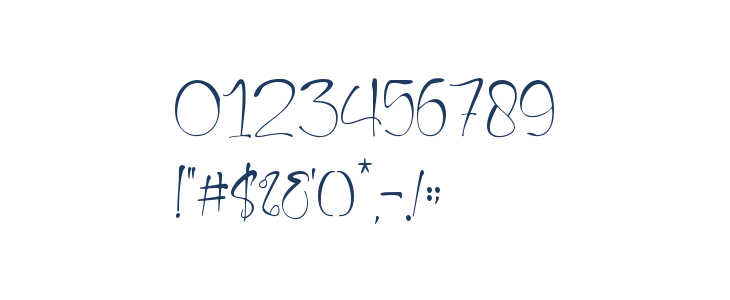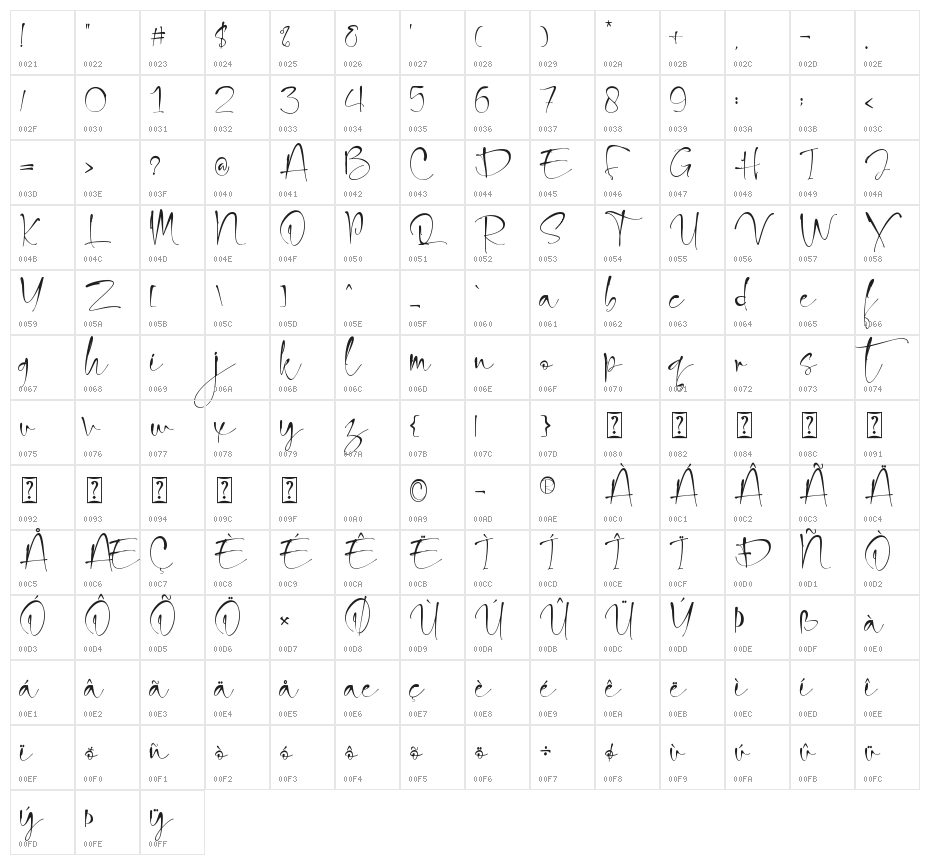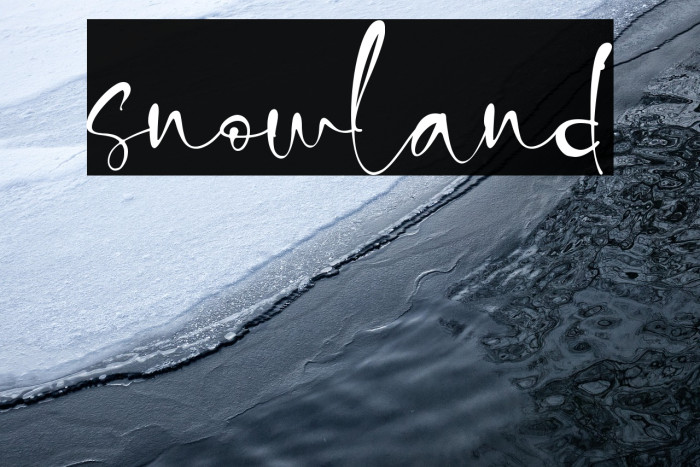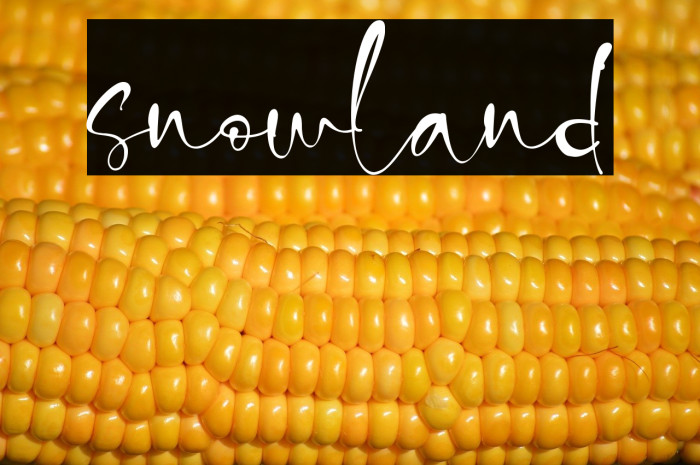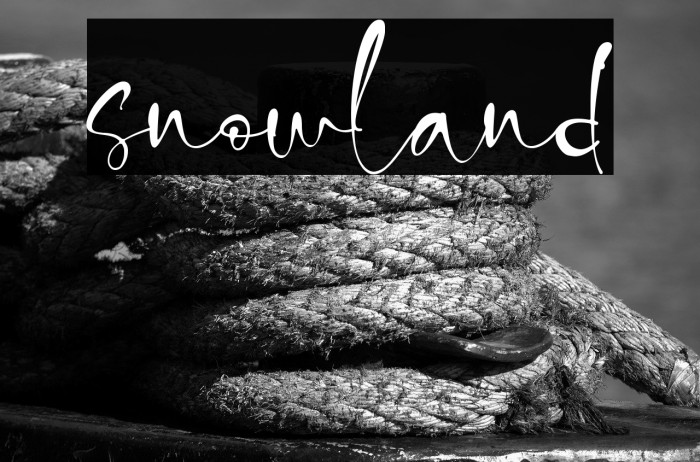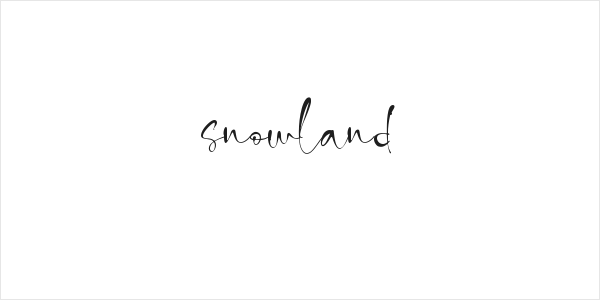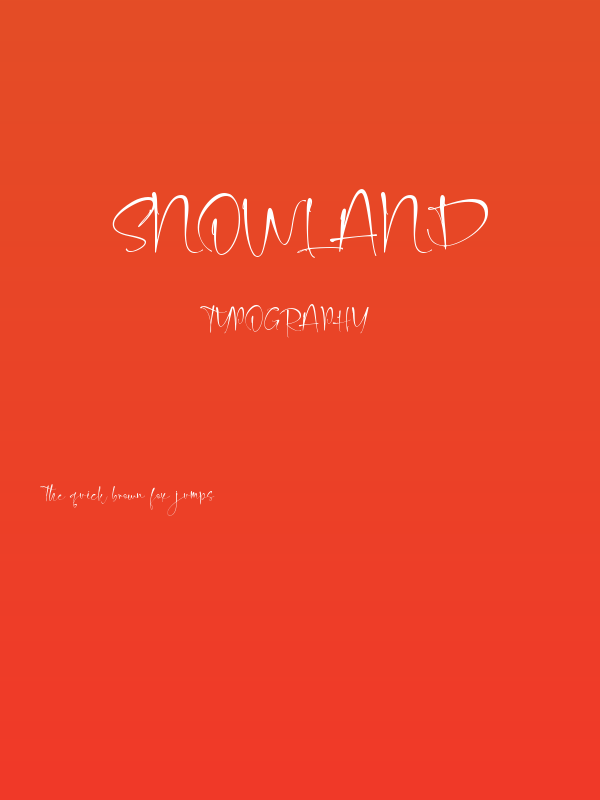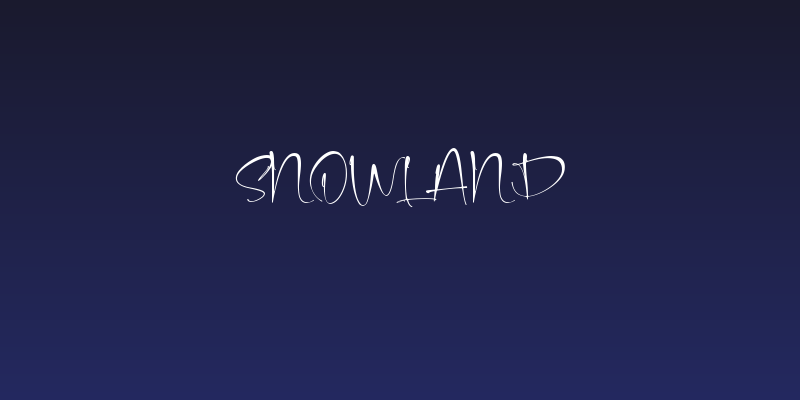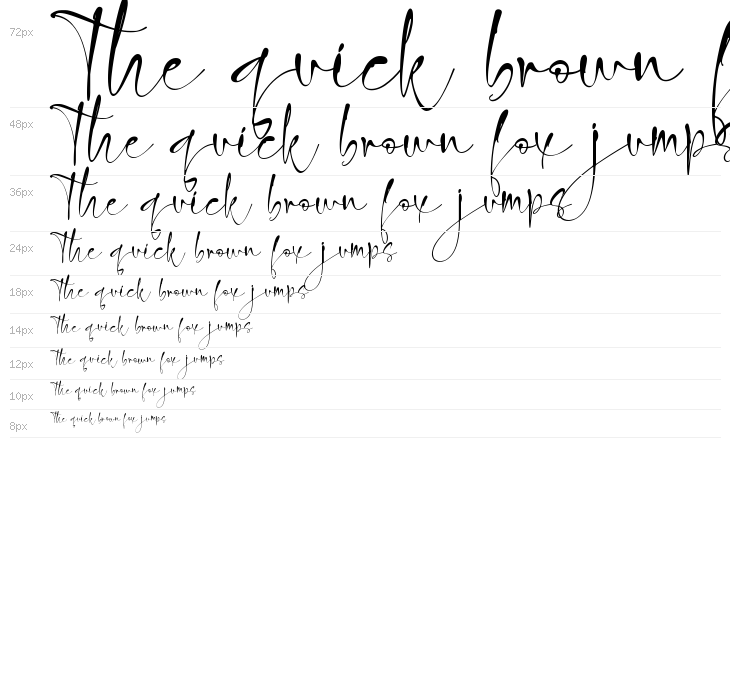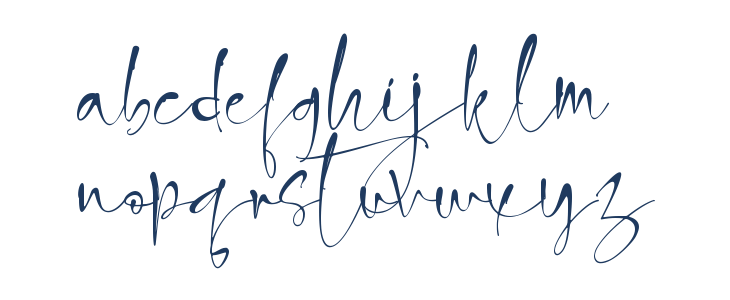
snowland Font
snowland Description
This font exhibits a dynamic and expressive handwritten style, characterized by its flowing and interconnected strokes. The uppercase letters are tall and elegant, with a slight slant that adds a sense of movement. The lowercase letters maintain a consistent rhythm, featuring loops and curves that enhance its artistic appeal. Numbers are clear and distinct, complementing the overall aesthetic. Special characters are creatively integrated, maintaining the font's unique flair. This font is perfect for projects that require a personal touch, such as invitations, greeting cards, or artistic branding.